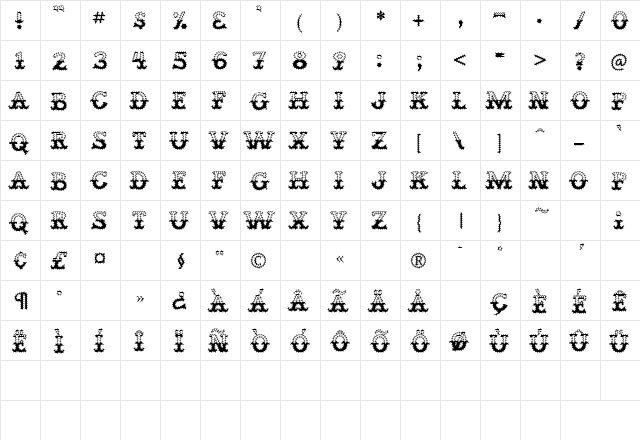
CourtJesterFrizzy Regular
Design Context for CourtJesterFrizzy Typeface
CourtJesterFrizzy is a composed and adaptable typeface that performs quietly and consistently across a wide range of design contexts.